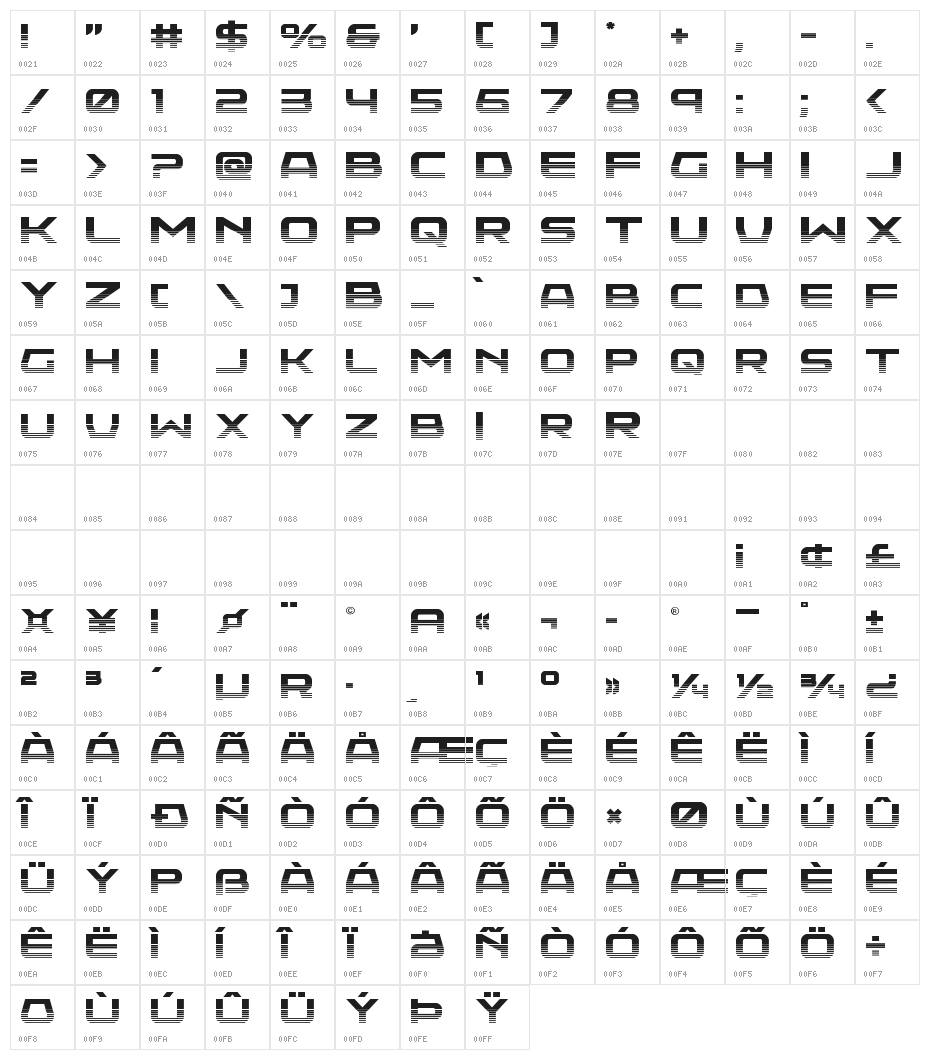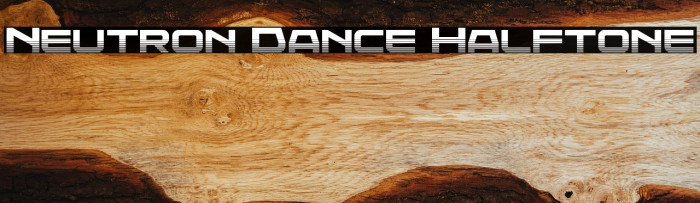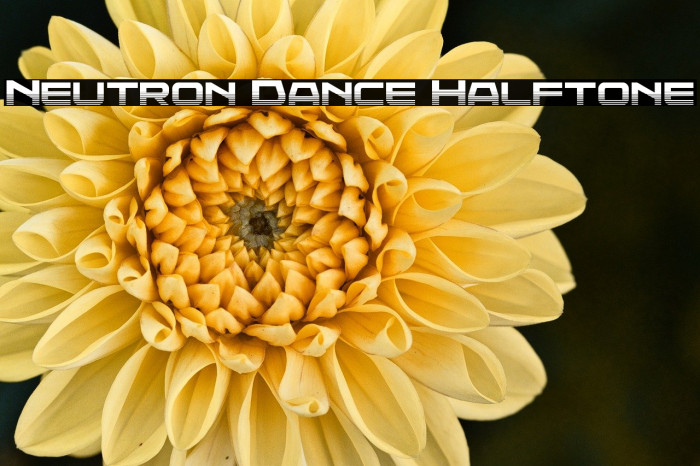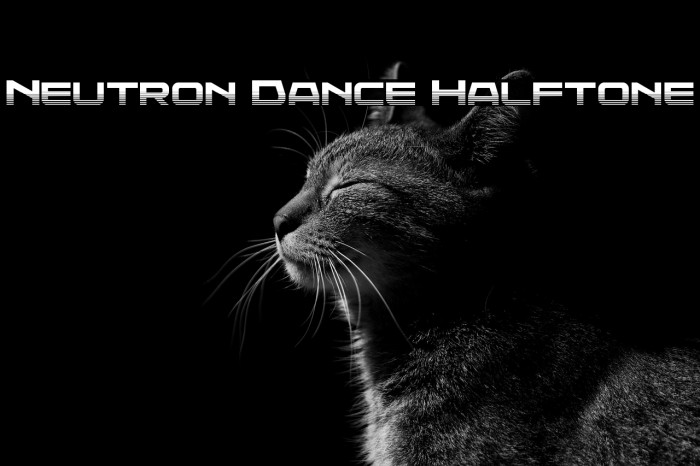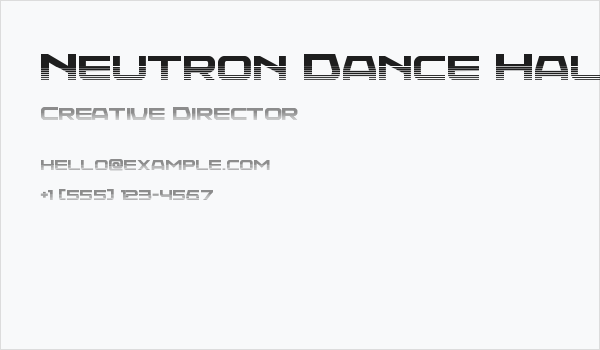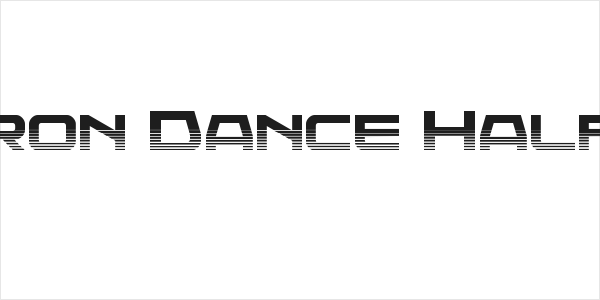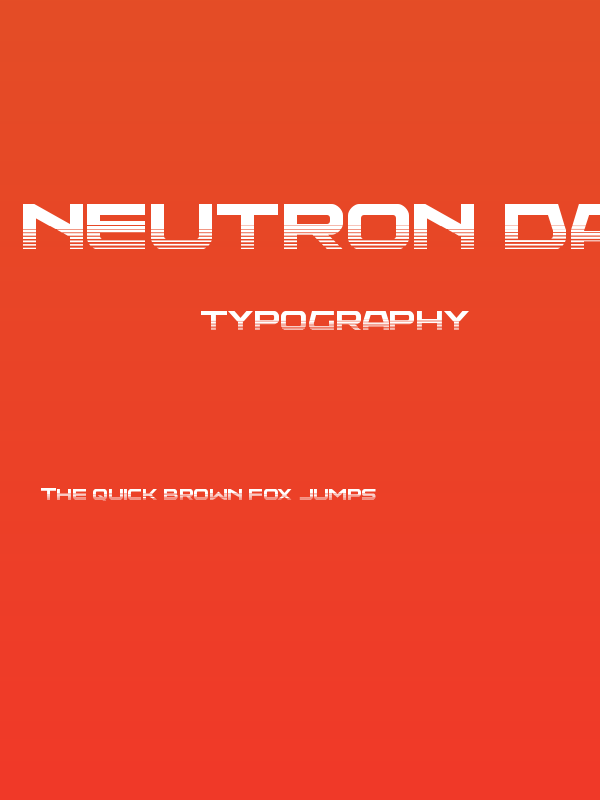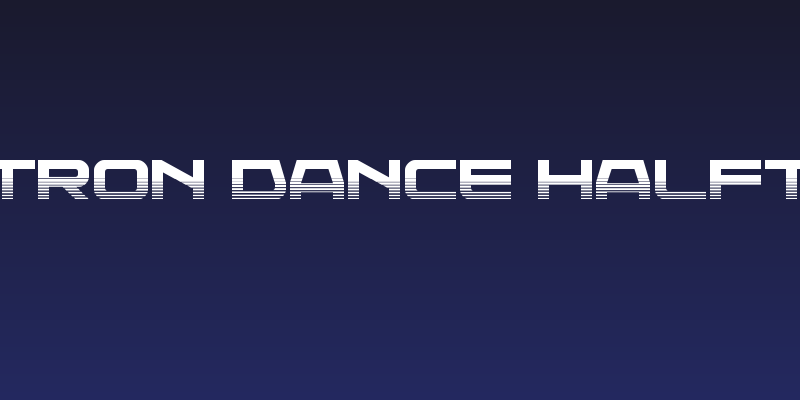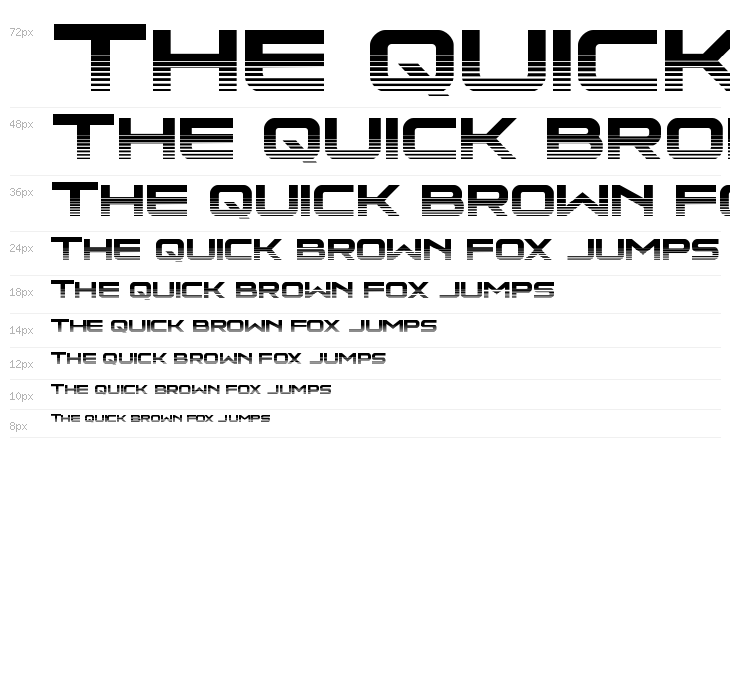
Neutron Dance Halftone Font
Neutron Dance Halftone Description
This font features a unique halftone design with a futuristic and digital aesthetic. The characters are constructed with horizontal lines that create a sense of movement and rhythm. The uppercase and lowercase letters maintain a consistent style, with sharp angles and geometric shapes. Numbers and special characters are also designed with the same halftone effect, ensuring uniformity across all glyphs. This font stands out with its bold and striking appearance, making it ideal for projects that require a modern and edgy look.
| Proposed Projects | Ideal for digital art, sci-fi themed projects, posters, and modern branding. |